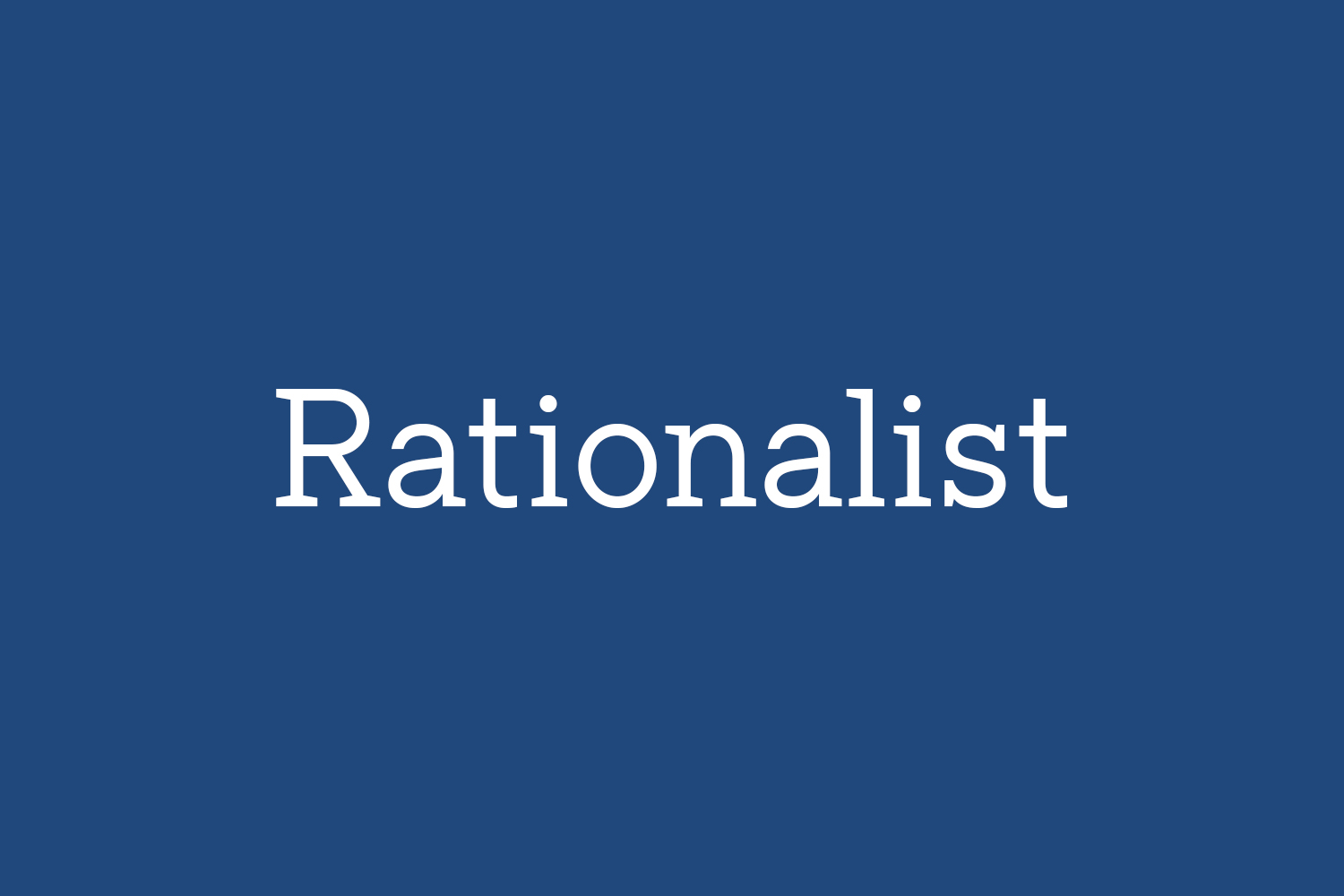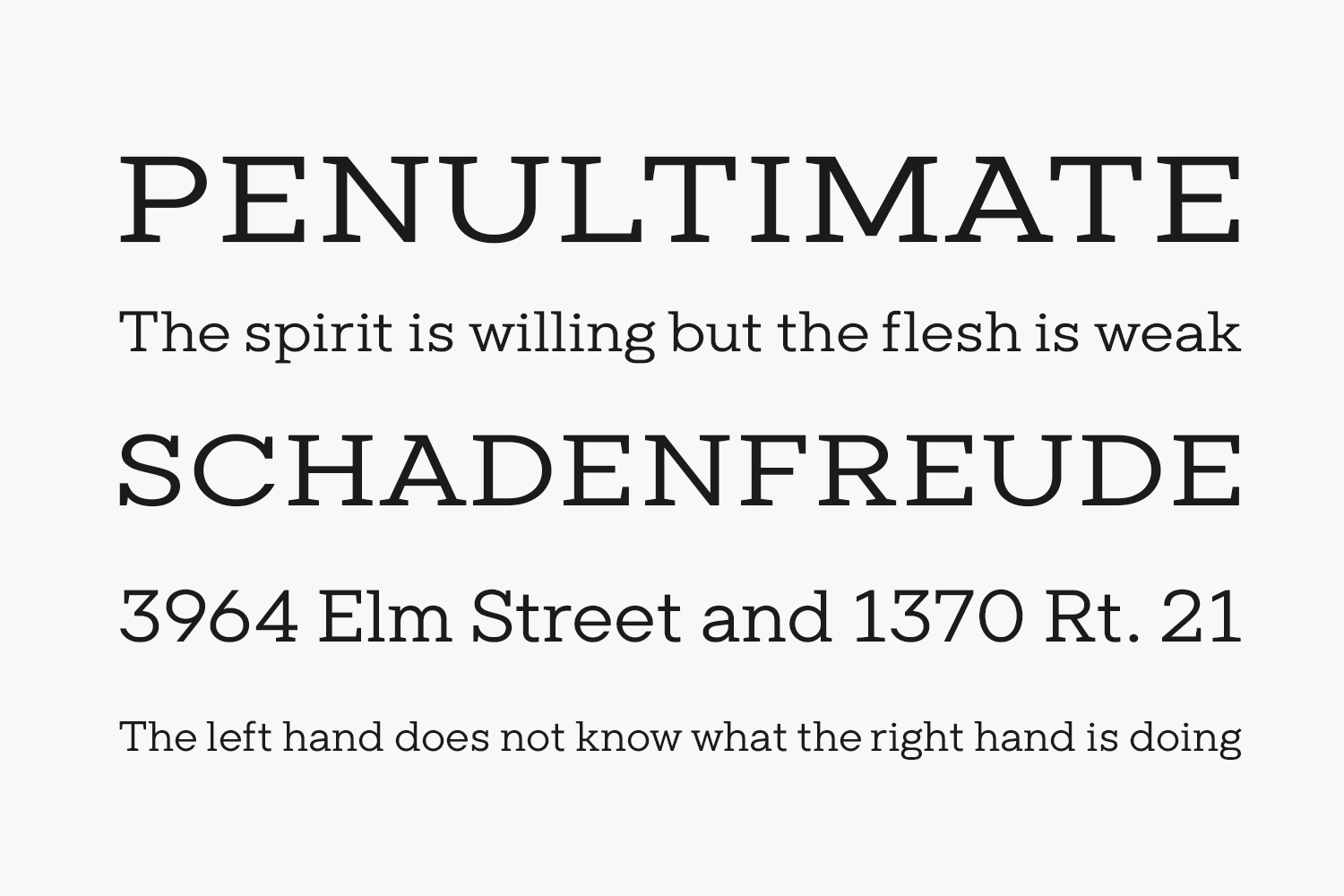
Rationalist
Rationalist Free Font Family is a free font that is designed with a modern and minimalistic approach, while also incorporating classic serif elements. The font features clean lines and sharp angles, which gives it a sophisticated and elegant appearance. It is a versatile font that can be used for a variety of design projects, from print materials such as posters and brochures, to digital media like websites and social media graphics. Rationalist Free Font is free for personal use only. Please purchase the full version for commercial use.